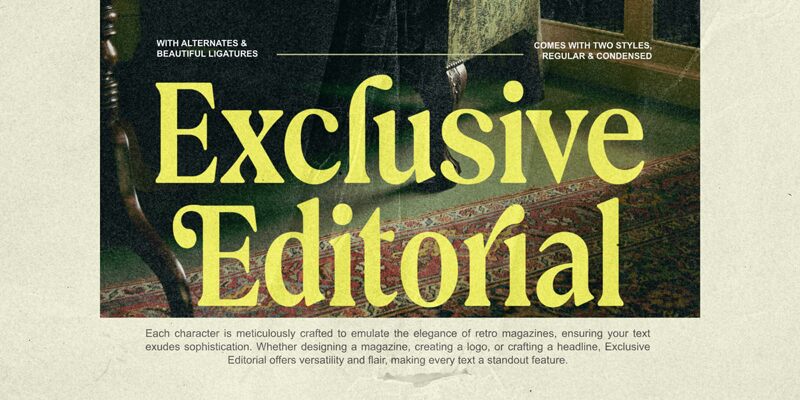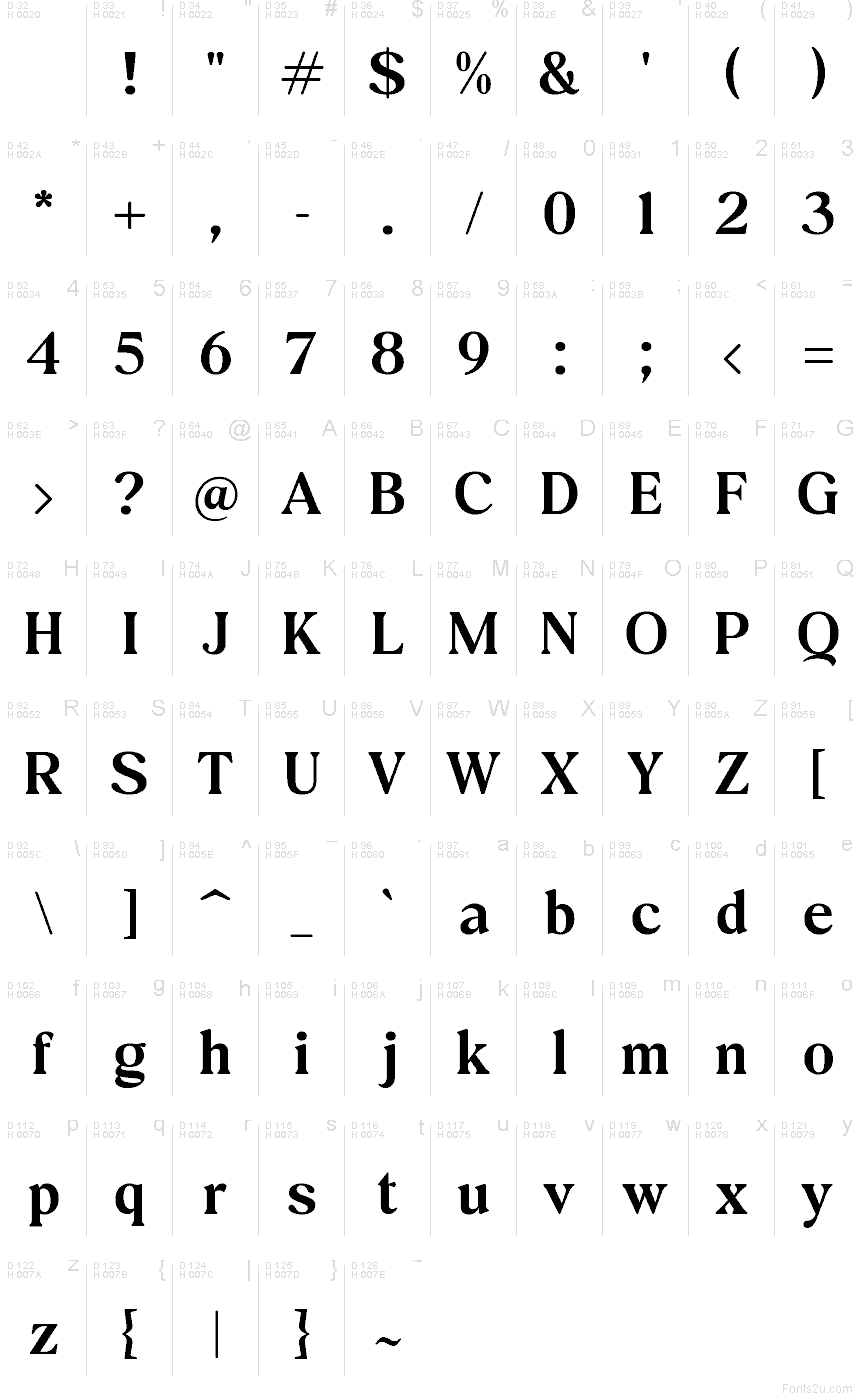
Exclusive Editorial Regular
Exclusive Editorial font by Dora Typefoundry is a free serif font with that headline authority you feel before you even read the words. It’s crisp and ink-dark, with strong slab-like serifs and a steady rhythm that keeps long titles looking composed instead of fussy. The overall texture reads confident and editorial—like print on thick paper.
Using Exclusive Editorial shines on magazine mastheads, book covers, fashion lookbooks, museum posters, premium packaging, brand wordmarks, and pull-quote graphics. This free font holds up when you track it slightly tighter for headlines, and it pairs cleanly with a quiet grotesk sans for captions and UI labels.